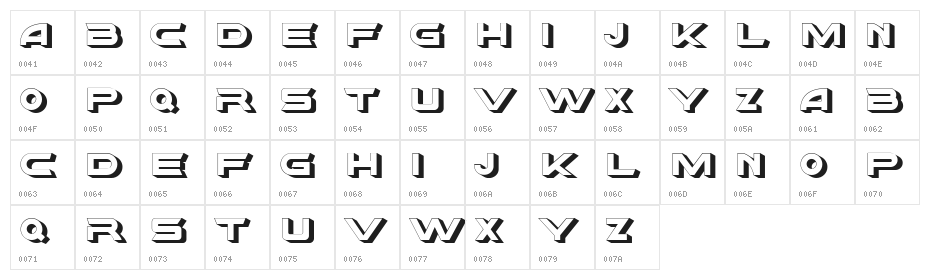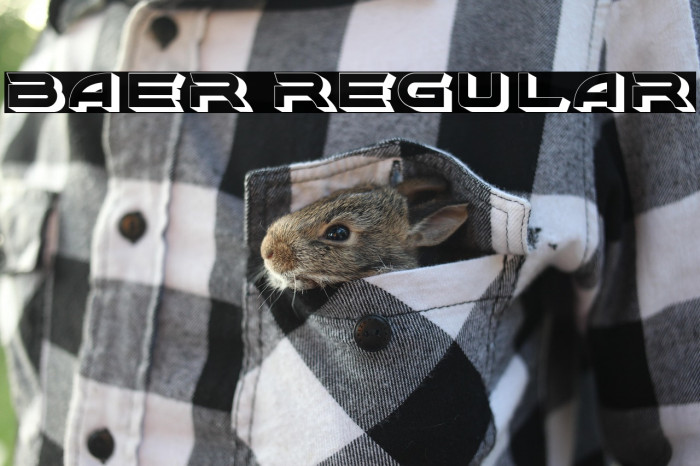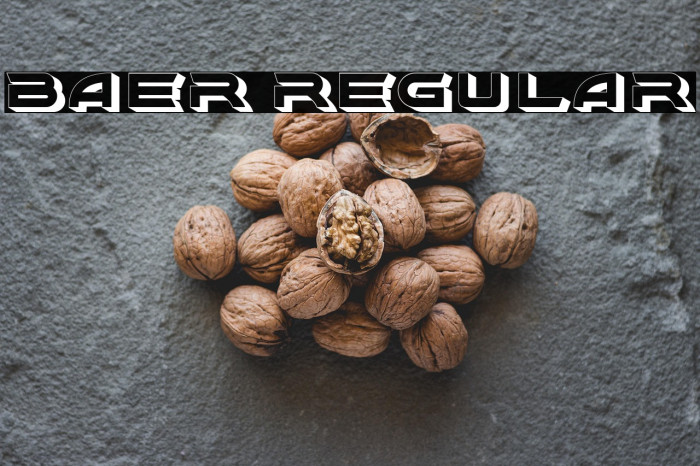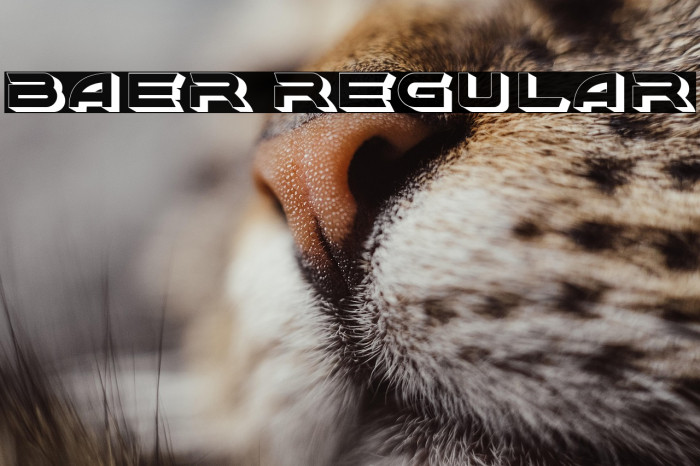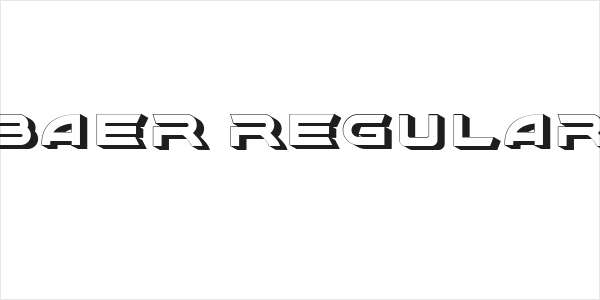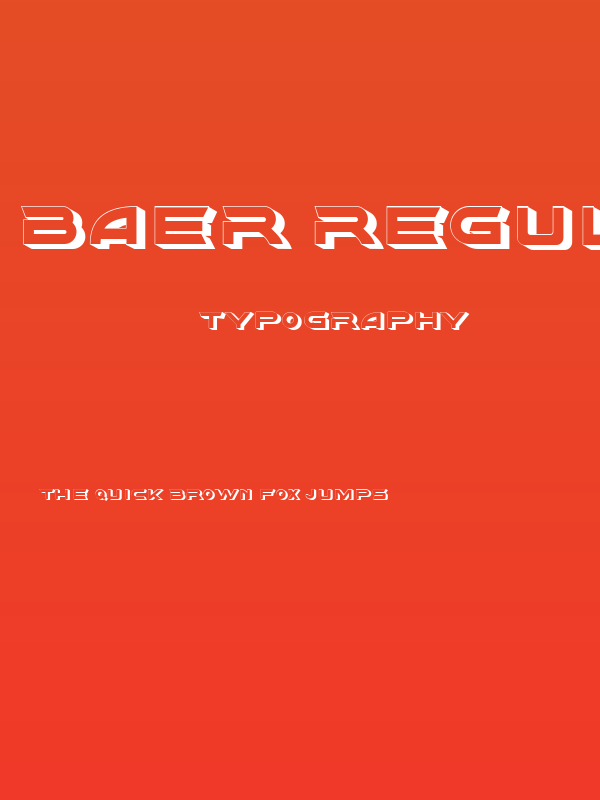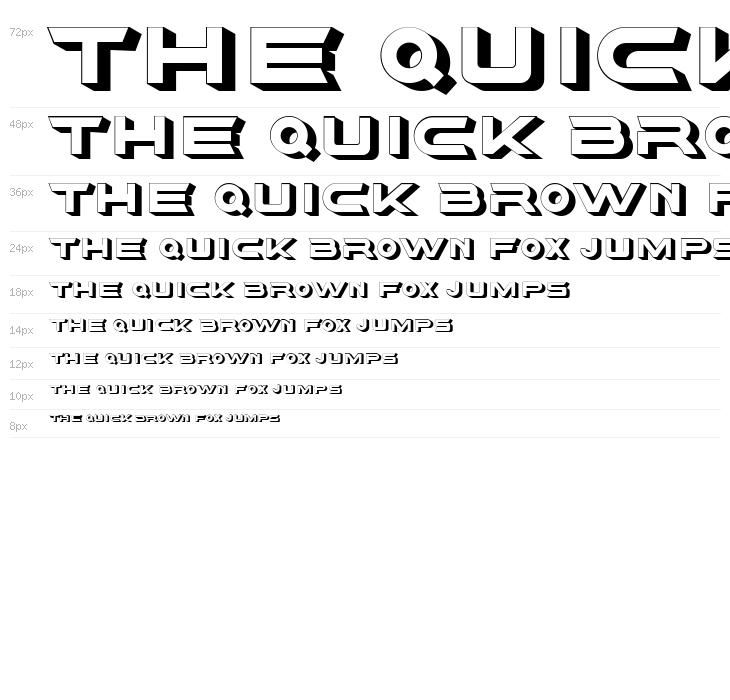
Baer Regular Font
Baer Regular Description
This font features a bold, geometric design with a three-dimensional effect that gives it a striking and modern appearance. The characters are constructed with sharp angles and clean lines, creating a sense of depth and movement. The boldness of the font is enhanced by the shadow effect, which adds a layer of complexity and visual interest. Each letter is distinct, with a consistent style that maintains readability while offering a unique aesthetic. The font's design is both futuristic and industrial, making it suitable for projects that require a strong visual impact.